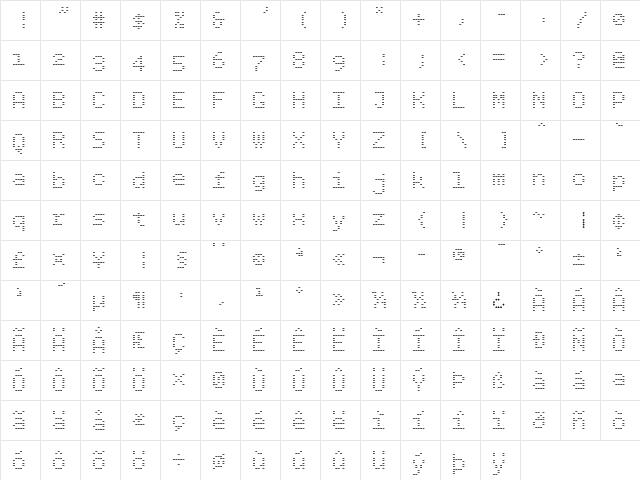
BPdotsMinus Regular
| Foundry | George Triantafyllakos |
| Designer | George Triantafyllakos |
BPdotsMinus is rooted in pixel-grid construction, making it a natural fit for game UI, retro computing aesthetics, and digital nostalgia projects.
A natural choice for retro game titles, chiptune music branding, 8-bit UI, and digital nostalgia projects.
Pro Tip: Pair BPdotsMinus with flat colour palettes and simple geometric UI elements to reinforce its digital aesthetic.